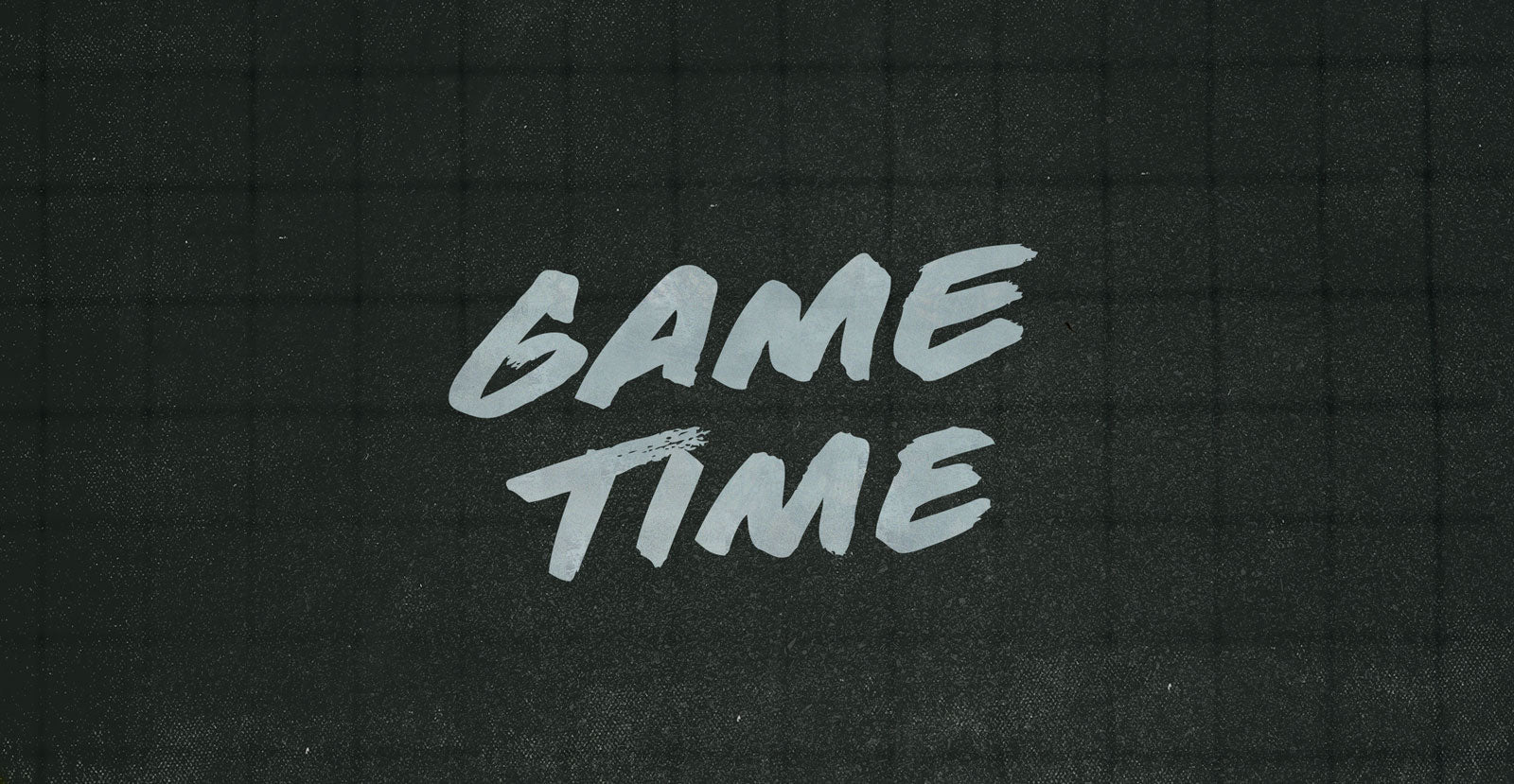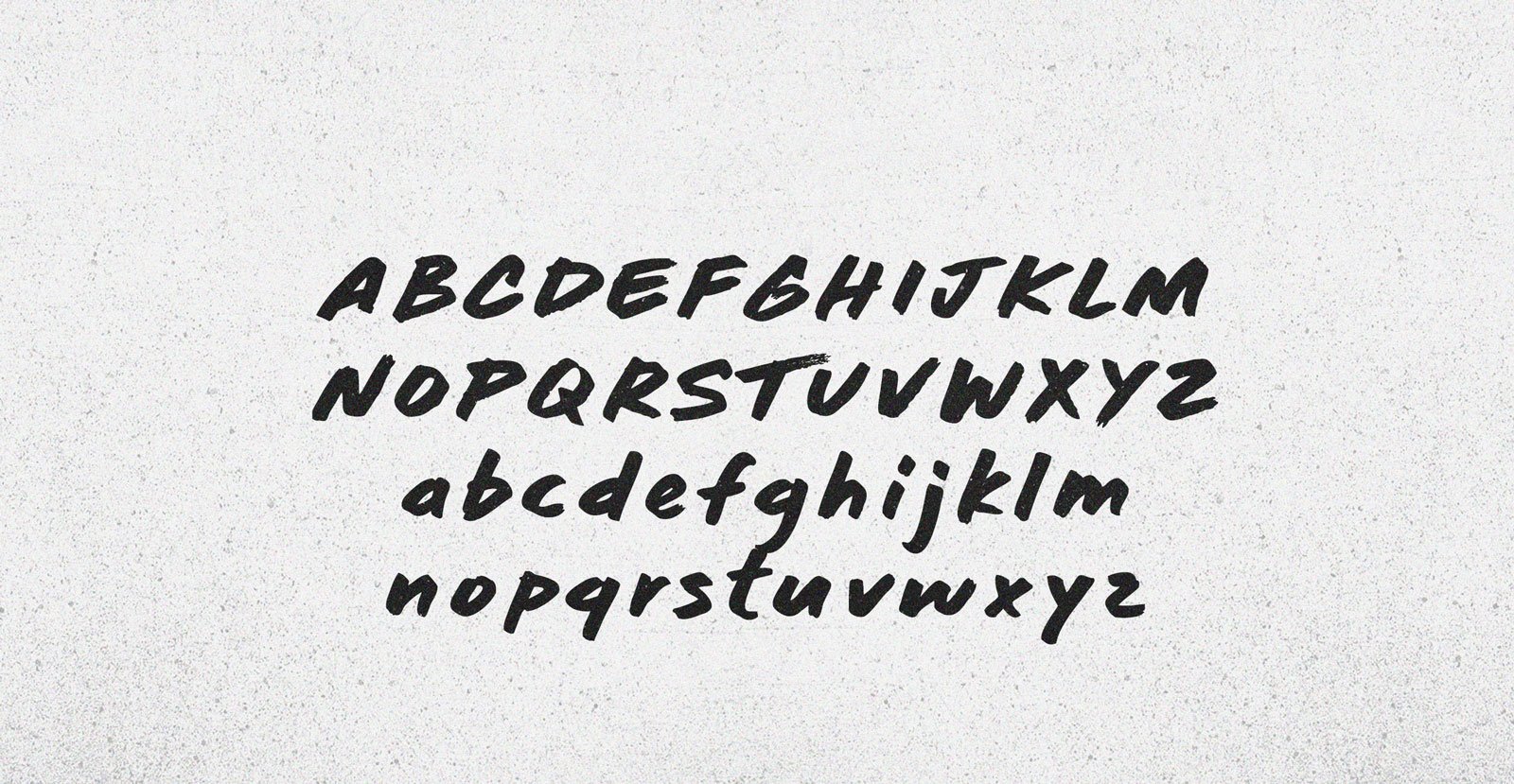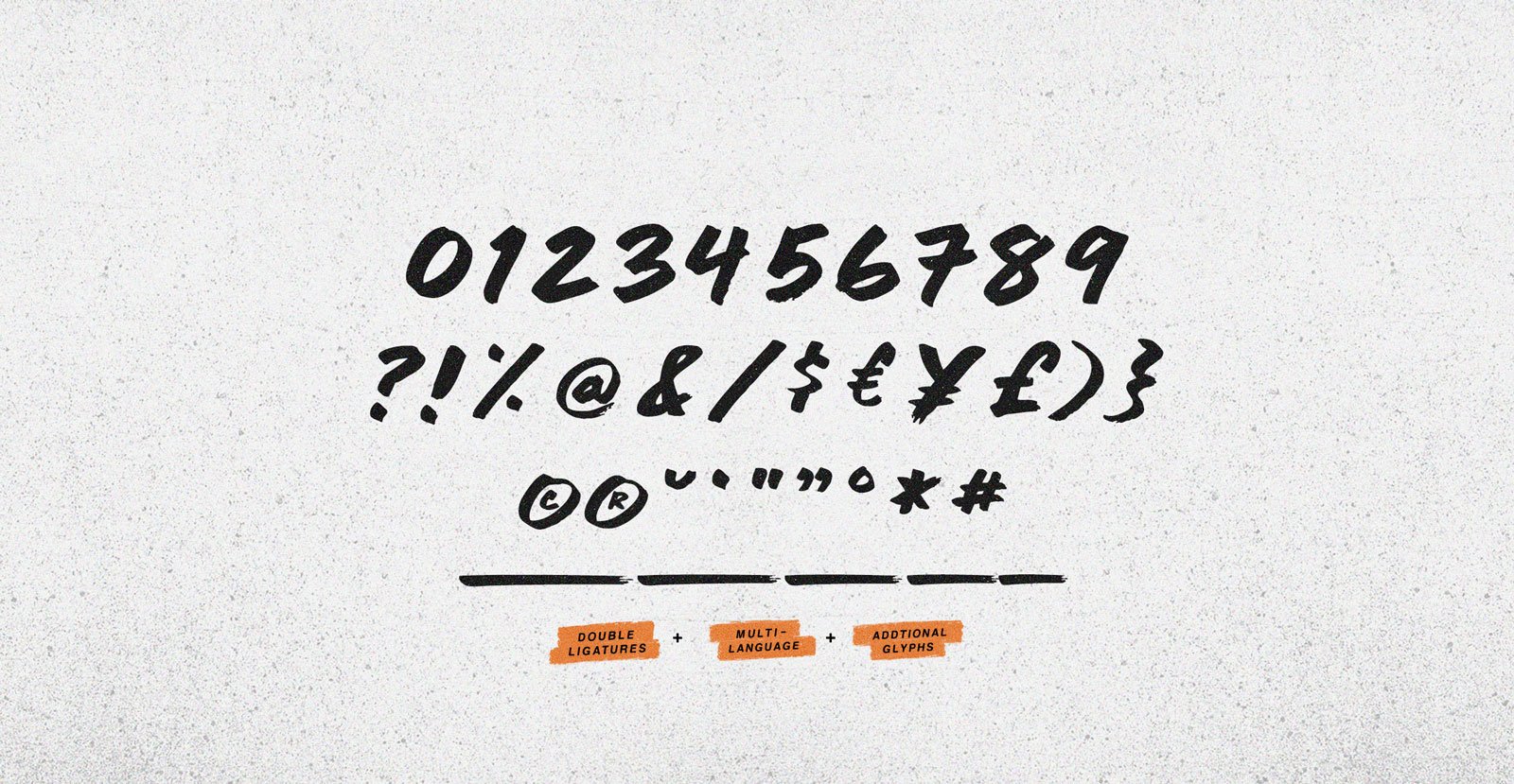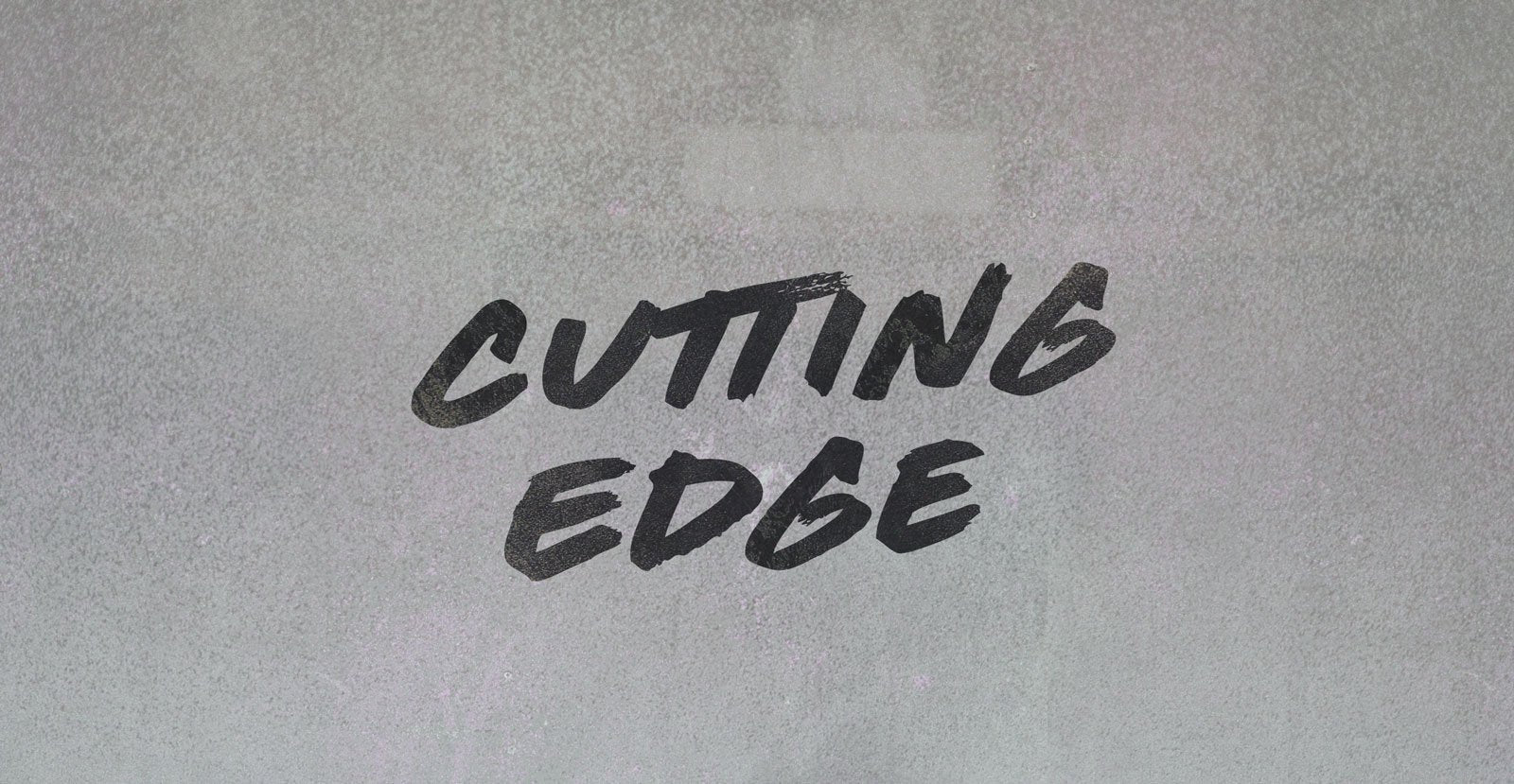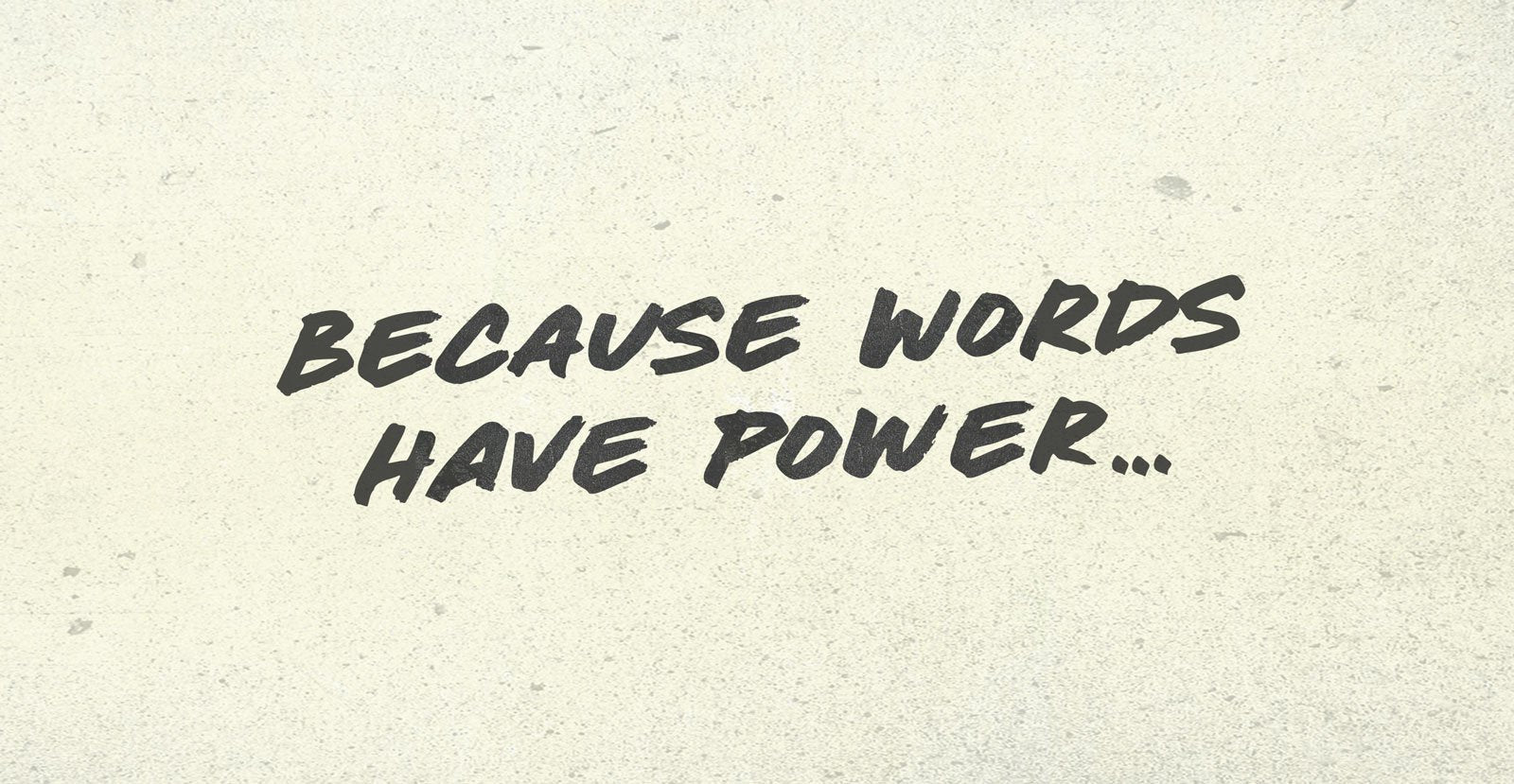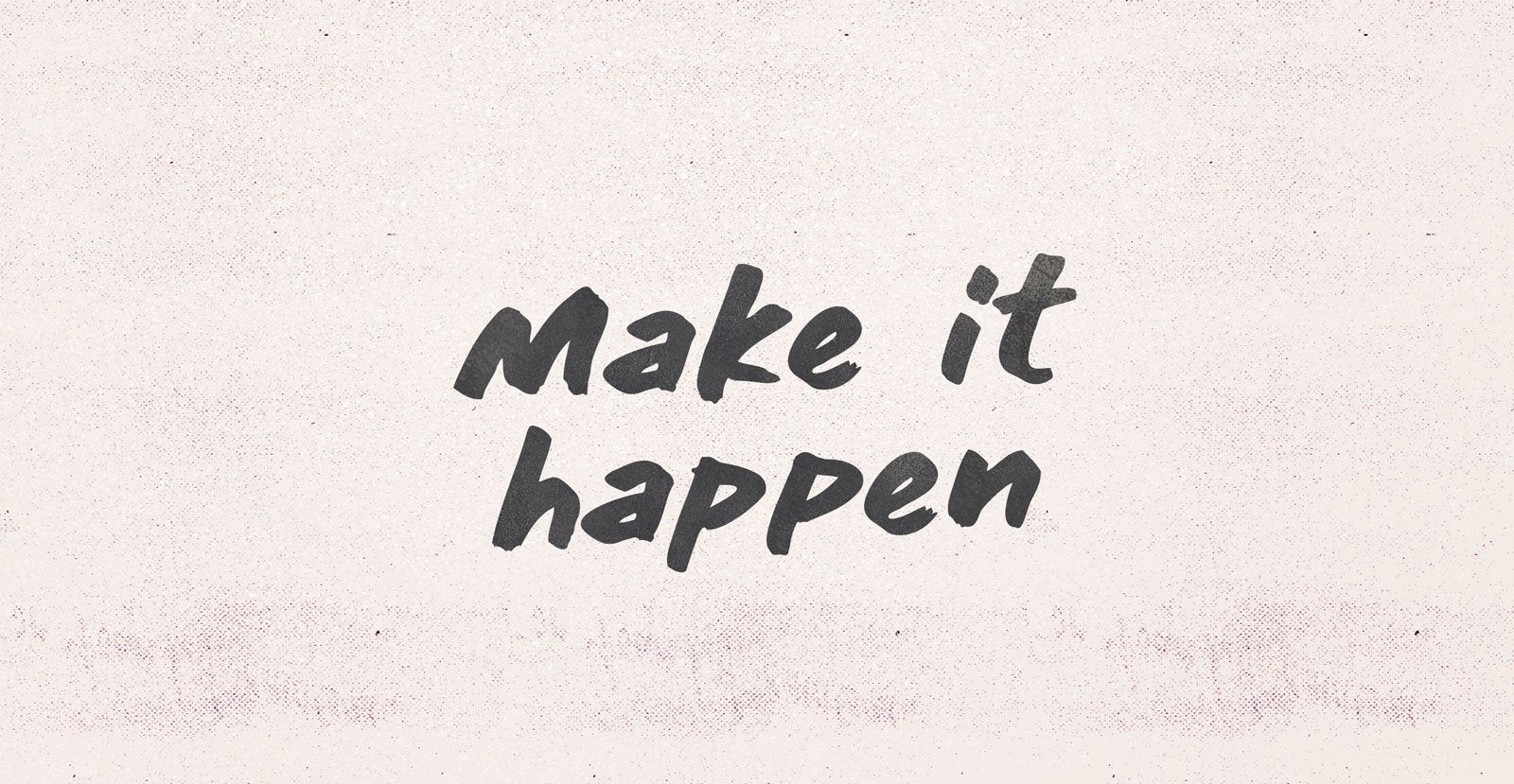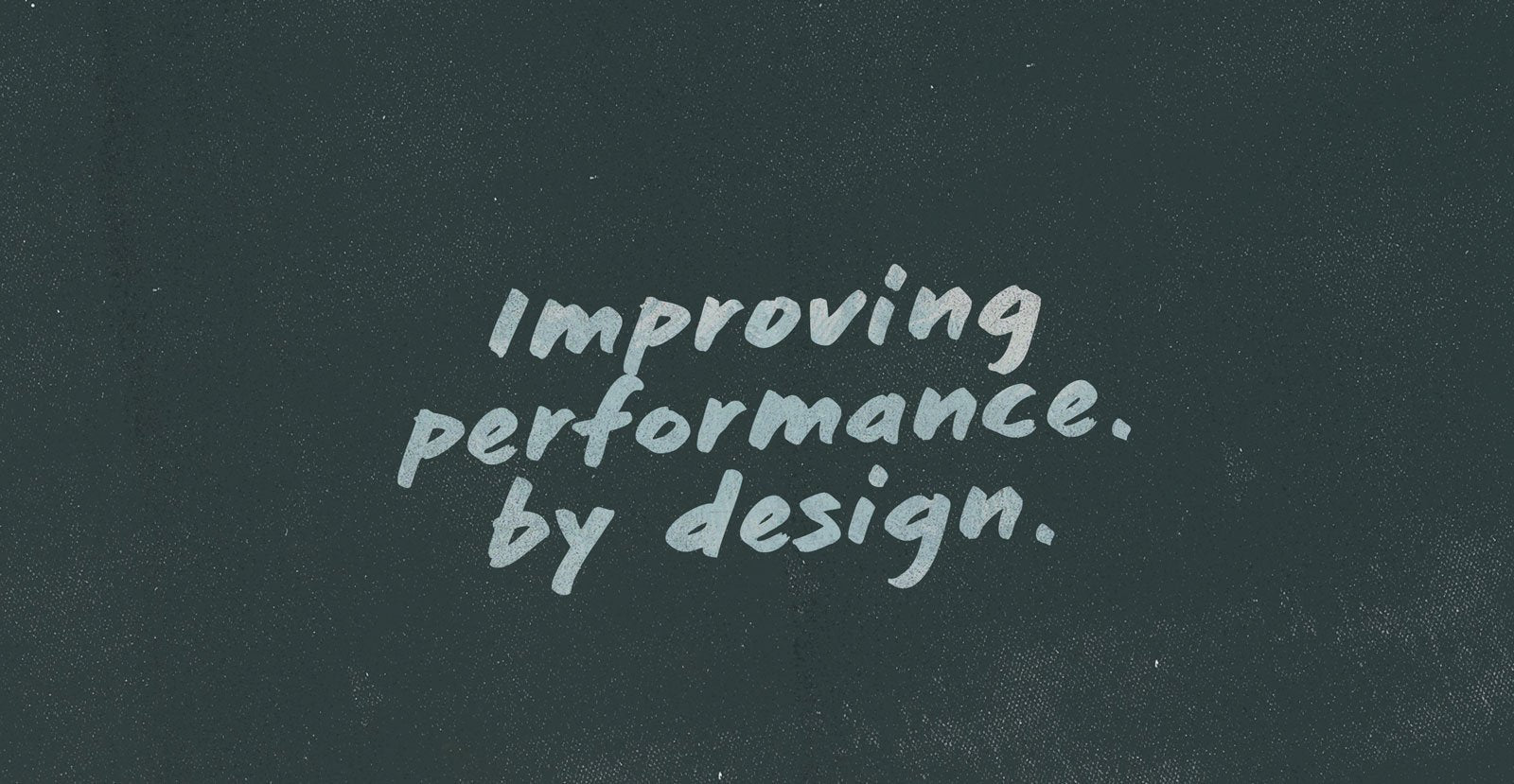
Game Time
All passion and frenzied heads blasting flecks of au jus into the faces of the temporally confused because it's Game Time, all the time, and they aren't what they eat, just an orange getting squeezed.